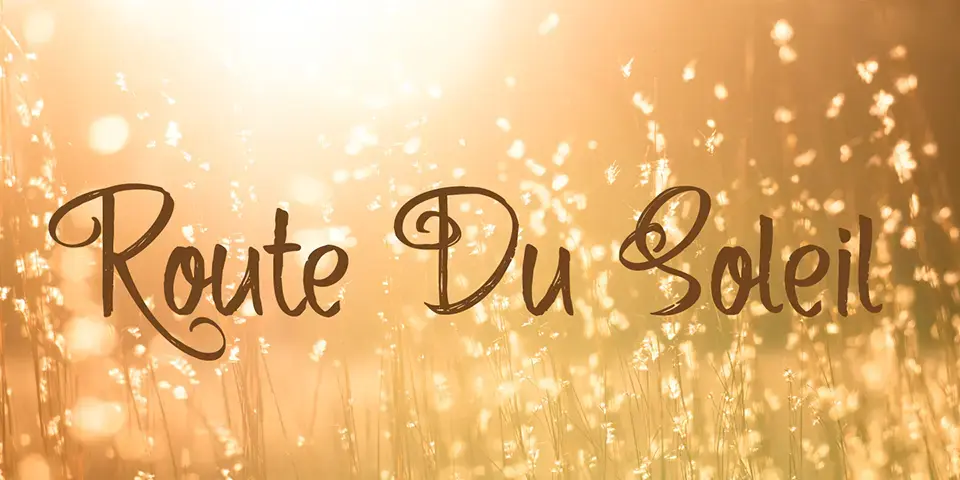
Route Du Soleil Font
Route Du Soleil is an enchanting hand-drawn script font characterized by flowing letterforms, graceful swashes, and sophisticated ligatures that bring a warm, inviting aesthetic to any creative project. The font’s organic brushstroke quality evokes a sense of movement and elegance, making it ideal for posters, greeting cards, wedding invitations, and decorative display work. Its versatile script style bridges casual handwriting and refined calligraphy, offering designers a powerful tool for creating memorable headlines and branding materials that demand attention and convey personality and charm.